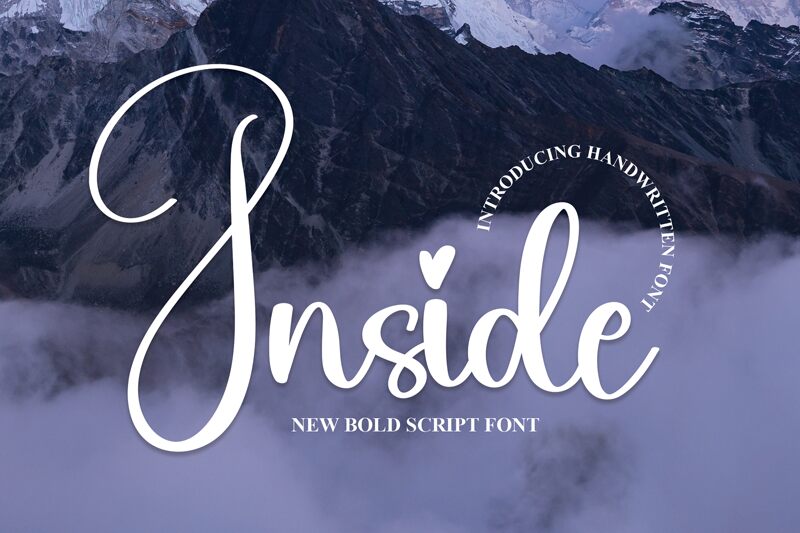
Inside
Inside, a mesmerizing calligraphy font by scratchones, exudes elegance and sophistication. Its semi-light weight lends an airy touch to any project, making it perfect for wedding invitations, luxurious branding materials, and refined stationery. The graceful curves and intricate details of Inside add a touch of romance to book covers, poetry collections, and heartfelt quotes. With its versatile nature, this font is also well-suited for fashion magazines, lifestyle blogs, and high-end product packaging. Bring your designs to life with Inside - where beauty meets tranquility in the world of calligraphy fonts.